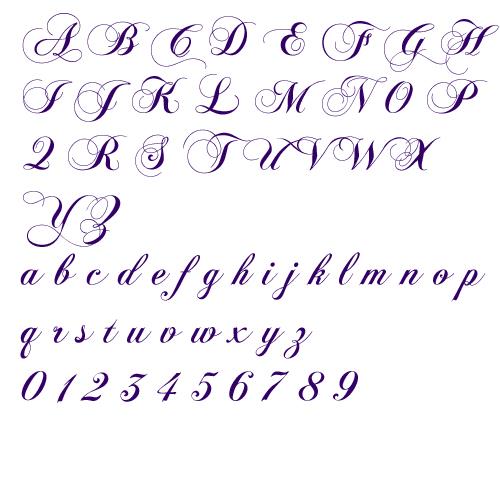
Fireside Threads is happy to present Chopin Script Embrilliance machine embroidery font which has This flowing script embroidery font is ideal for monogramming on linens, personalized gifts, and wedding items. Available in BX font and Embrilliance formats, it adds a charming touch to any project. included. If you would like to view more embroidery fonts and alphabets please search our embroidery fonts page.